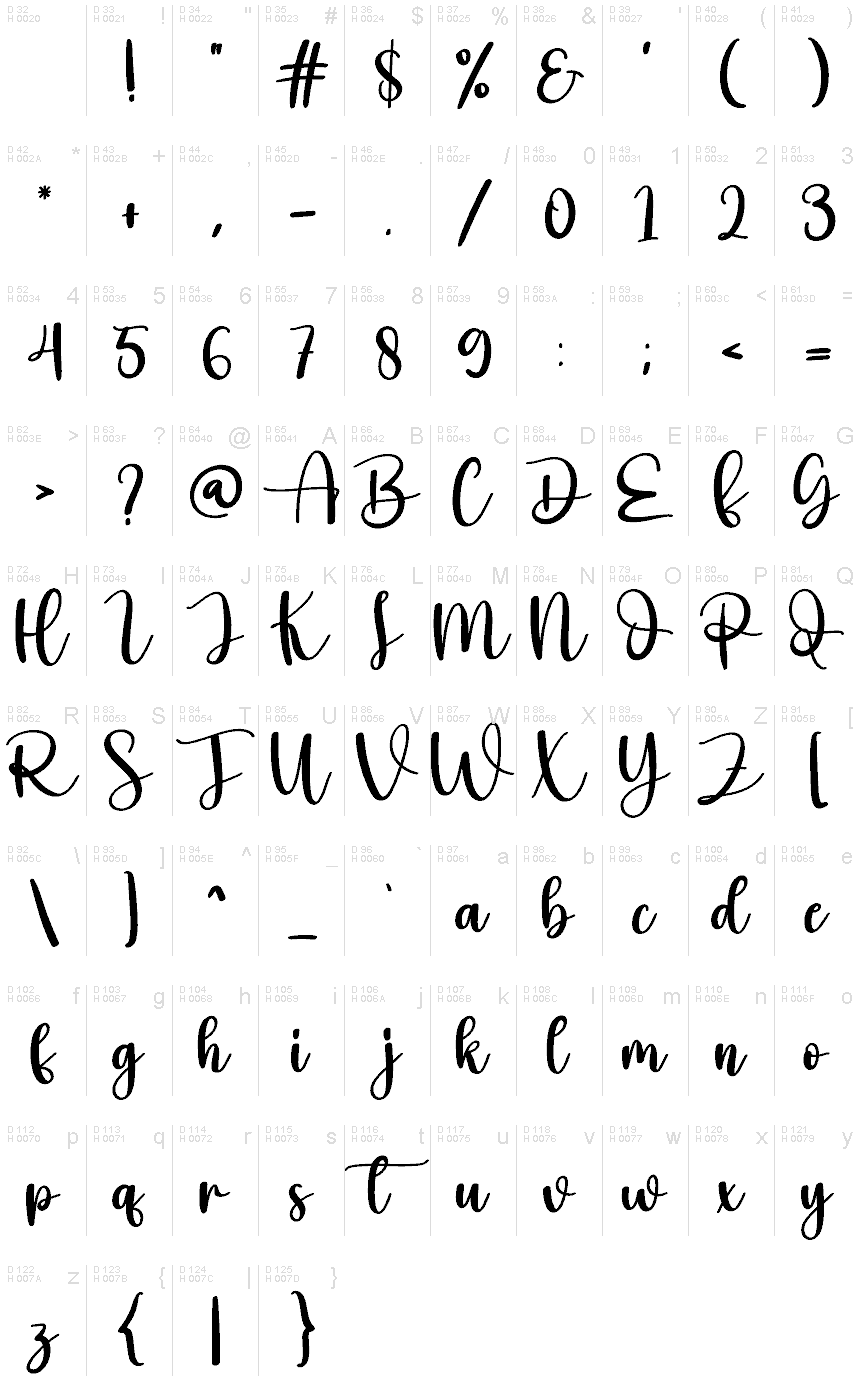
Activity
Activity, a charming creation by Scratchones, is a semi-light font that exudes the warmth of a handwritten script. Its delicate strokes and graceful curves make it ideal for projects that require a touch of elegance and personalization.
With its lovely handwritten style, Activity adds a whimsical appeal to wedding invitations, greeting cards, and personal blogs. This font effortlessly evokes feelings of romance and nostalgia, making it a perfect choice for branding materials in the fashion or beauty industry.
Let Activity bring life to your designs with its enchanting charm.
With its lovely handwritten style, Activity adds a whimsical appeal to wedding invitations, greeting cards, and personal blogs. This font effortlessly evokes feelings of romance and nostalgia, making it a perfect choice for branding materials in the fashion or beauty industry.
Let Activity bring life to your designs with its enchanting charm.